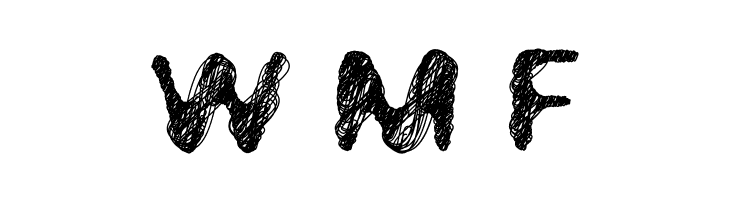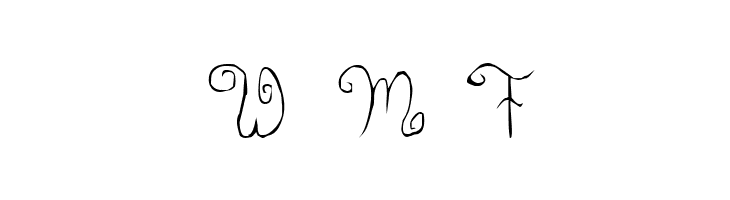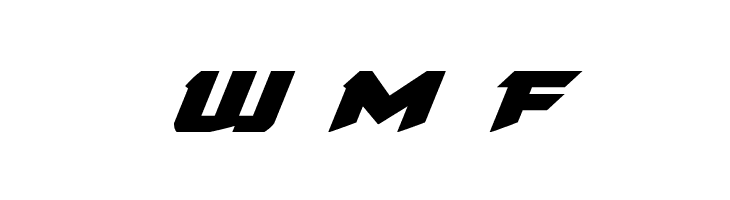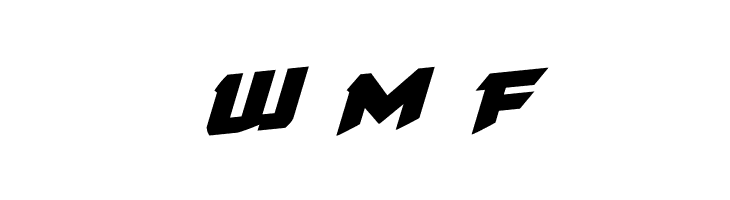
Lucky Skirt Regular Font
Font by Niskala Huruf
A playful, bold font with rounded edges and consistent thickness.
Skir Font
Font by Neale Davidson - www.pixelsagas.com
A bold, geometric font with a futuristic and modern aesthetic.
Skir Oblique Font
Font by Neale Davidson - www.pixelsagas.com
A modern oblique font with sharp angles and a sleek, dynamic style.
Skirmisher Font
A bold, angular font with a futuristic and aggressive style.
Skirt Girl Font
A whimsical, curly font with decorative swirls and loops.
Hula Skirt Girl Font
A playful, handwritten font with dynamic strokes and a whimsical style.
Skirmisher Rotalic Font
A bold, angular font with a dynamic, forward-leaning slant.
Skirmisher Expanded Font
A bold, angular font with a futuristic and dynamic design.
Skirmisher Expanded Italic Font
A bold, angular, and italicized font with a futuristic and expanded style.
Skirmisher Condensed Font
A bold, angular, and condensed font with a futuristic, military-inspired design.
Skirmisher Italic Font
A bold, angular, and italicized font with a futuristic and edgy design.
Skirmisher Condensed Italic Font
Bold, angular, and italic with a condensed form and high contrast.
skirules-Sans2 Expanded Medium Font
A playful, hand-drawn font with intricate, swirling patterns.
Skirmisher Semi-Italic Font
A bold, angular, semi-italic font with a futuristic and aggressive style.
Skirmisher Halftone Italic Font
A bold, italicized font with a halftone effect and futuristic style.
skirules-Sans Expanded Medium Font
A distressed, grungy font with rough edges and irregular shapes, perfect for edgy designs.
Skirmisher Laser Font
A bold, futuristic font with sharp angles and geometric shapes.
Skirmisher Laser Italic Font
A bold, futuristic font with sharp, angular edges and an italicized slant.
Skirmisher Leftalic Font
A bold, angular font with sharp, geometric edges and a dynamic slant.
Skirmisher Gradient Italic Font